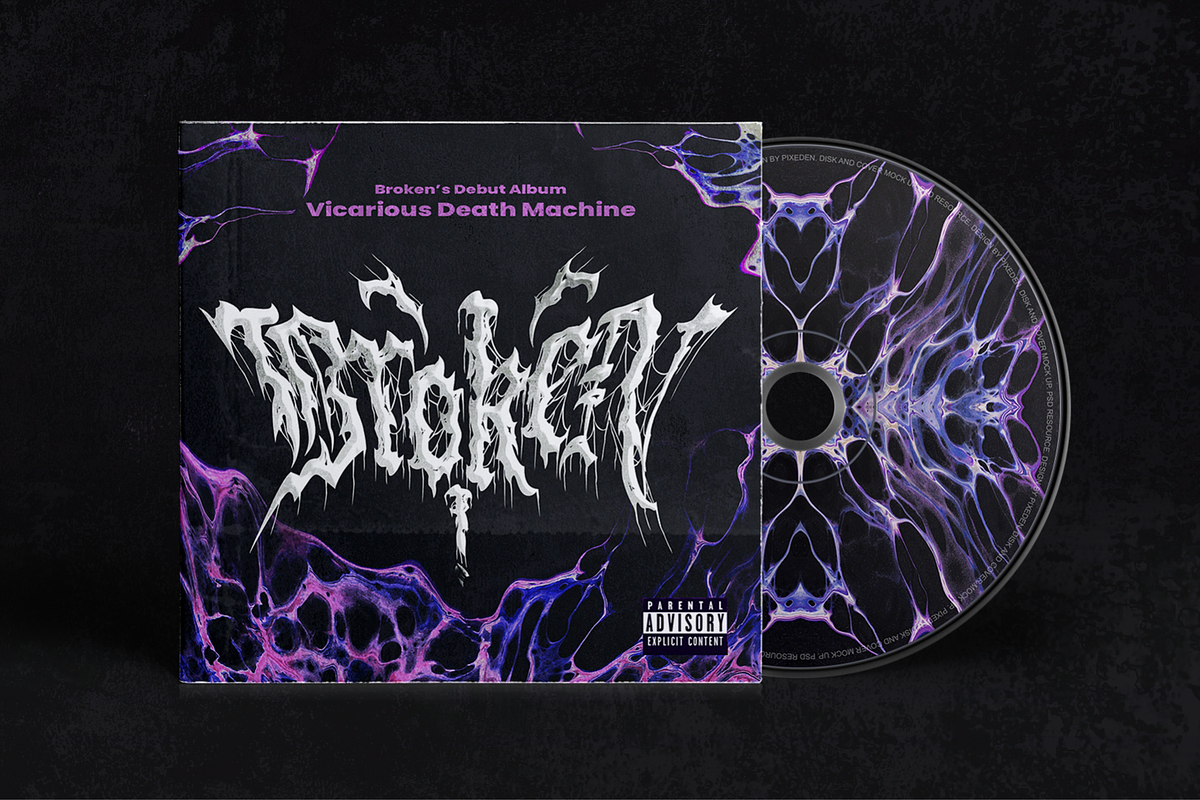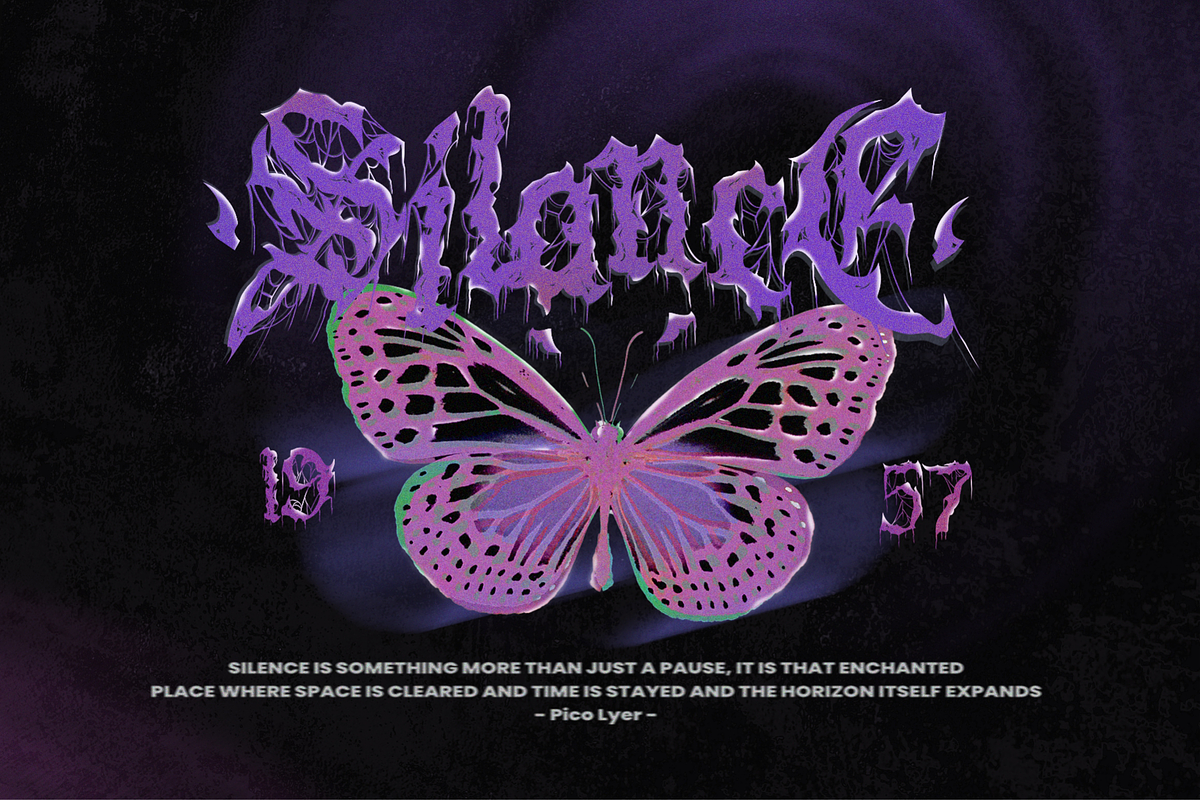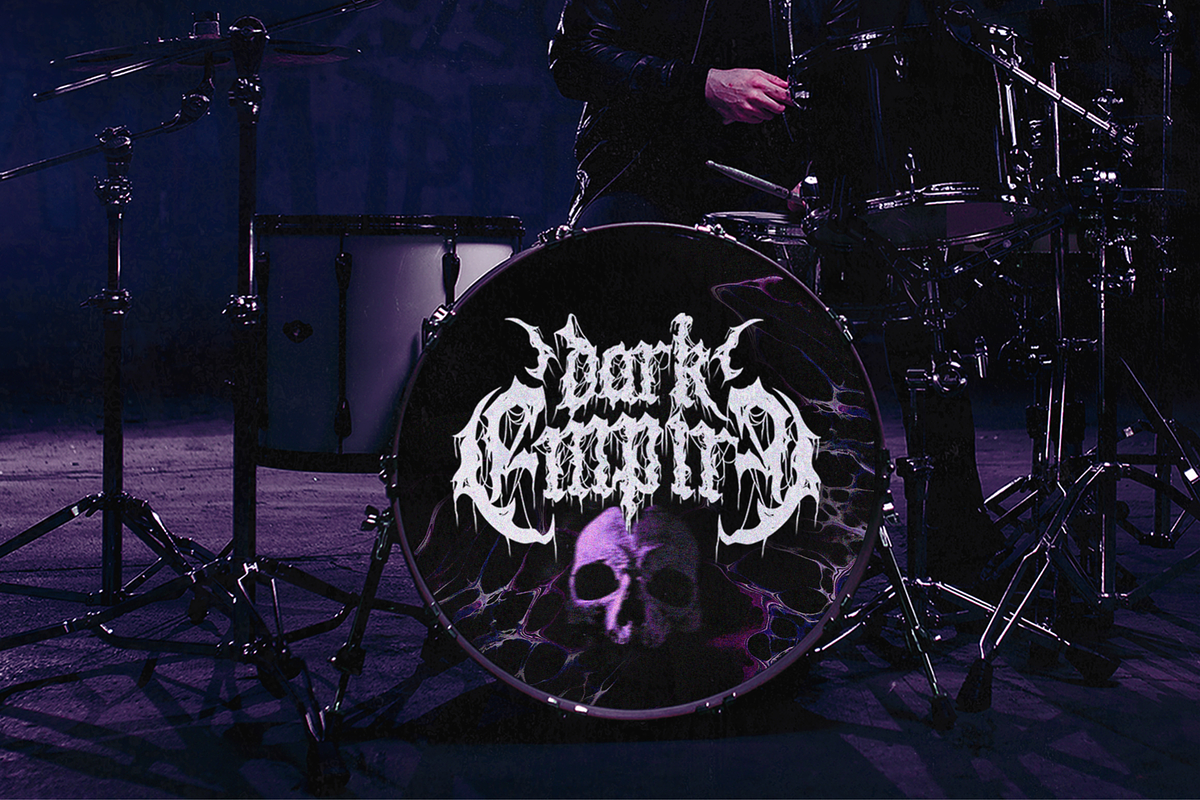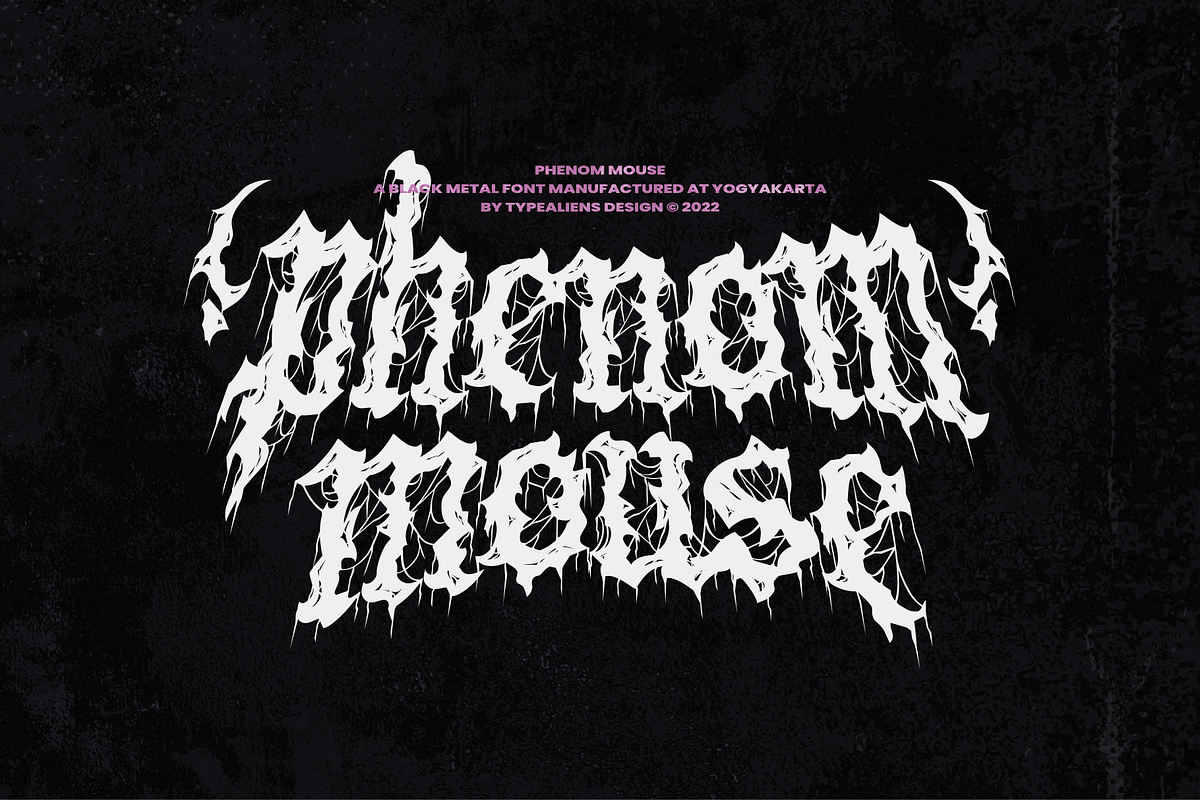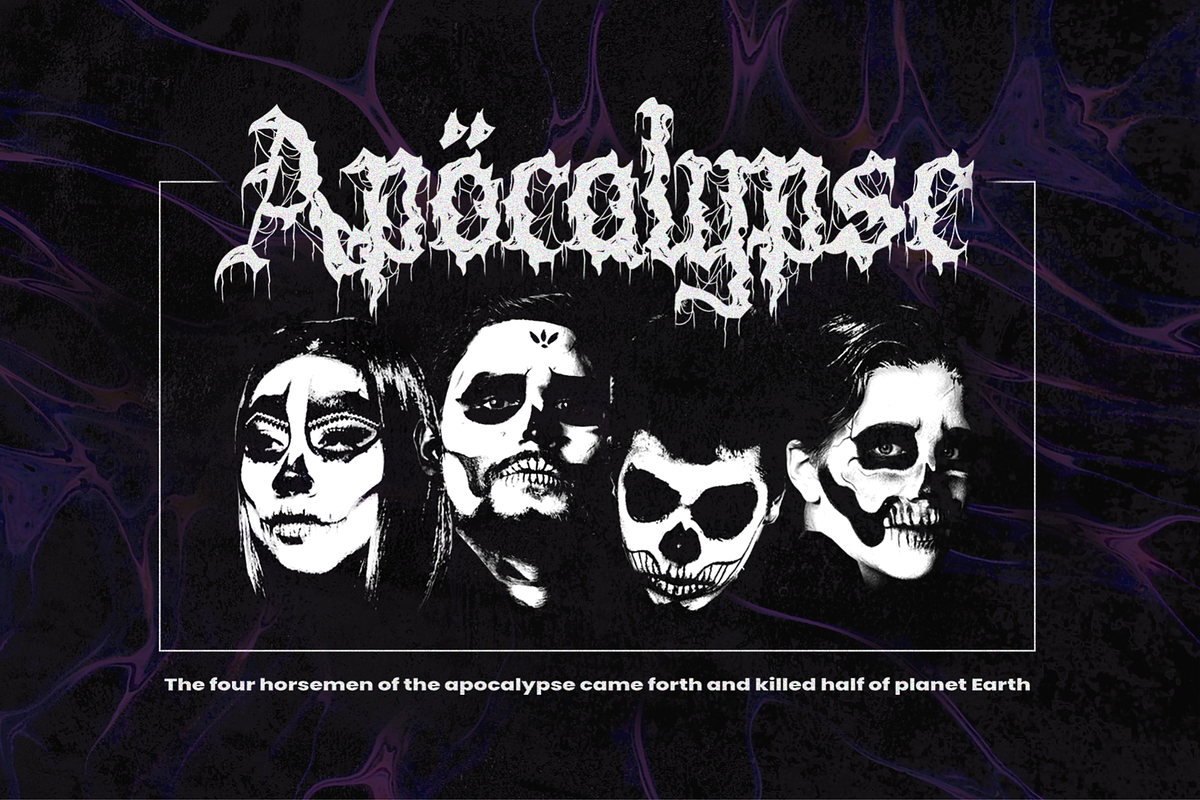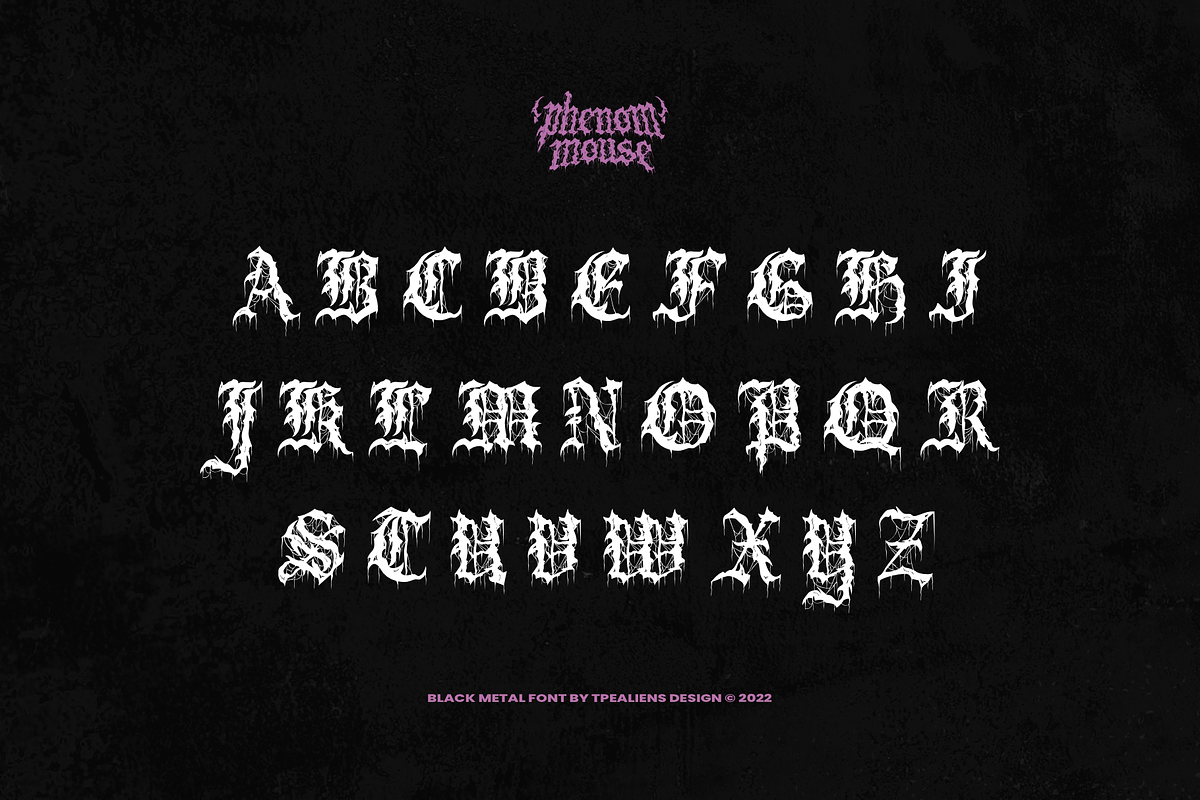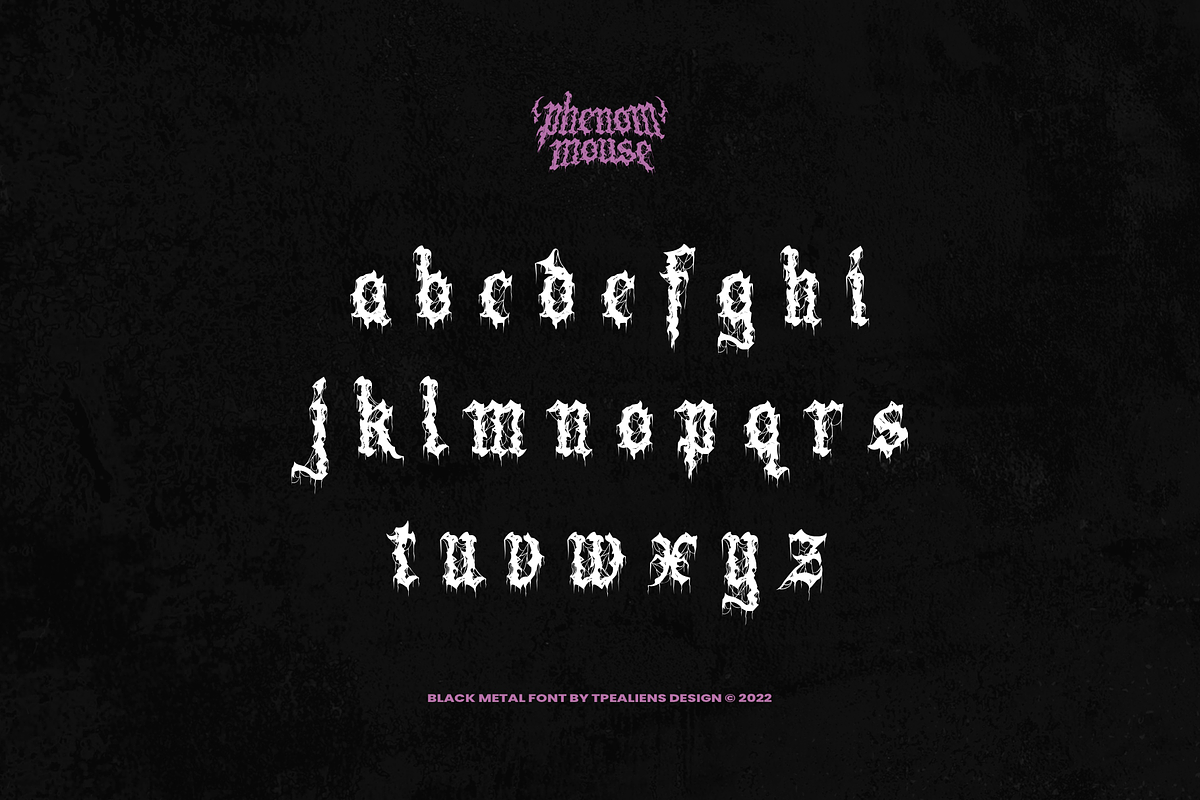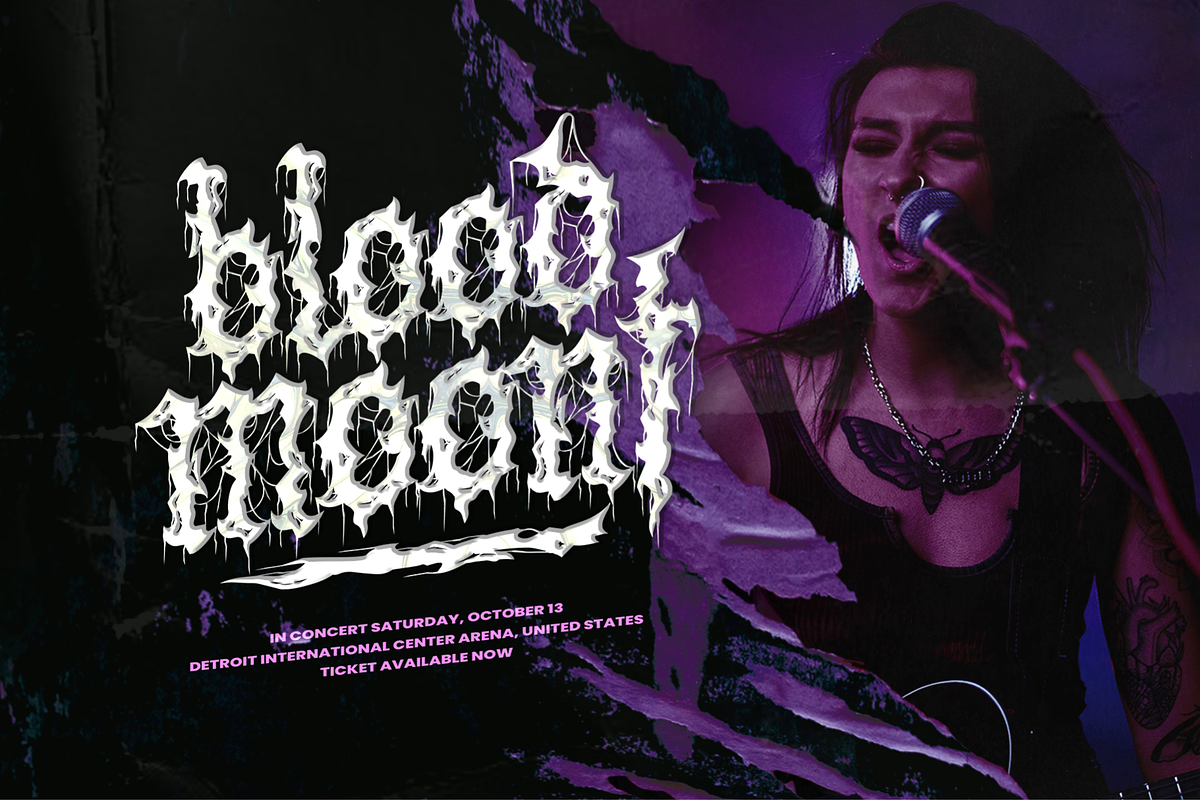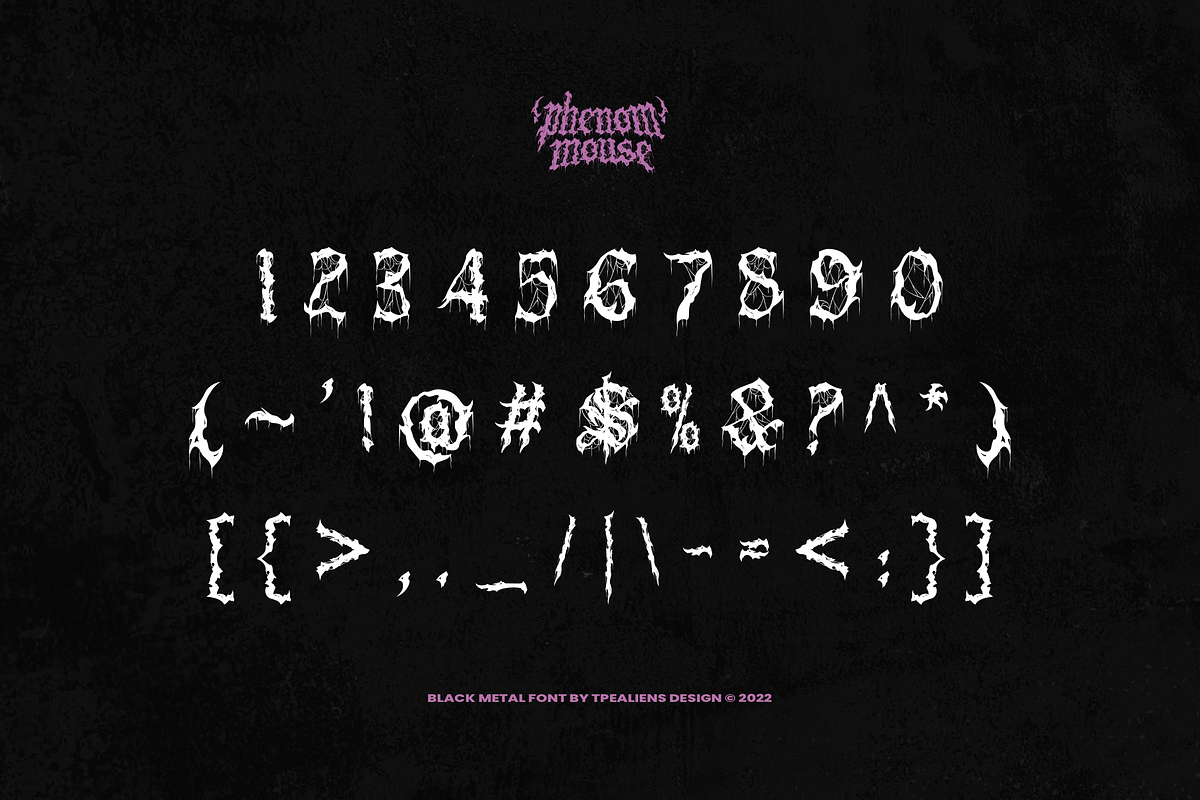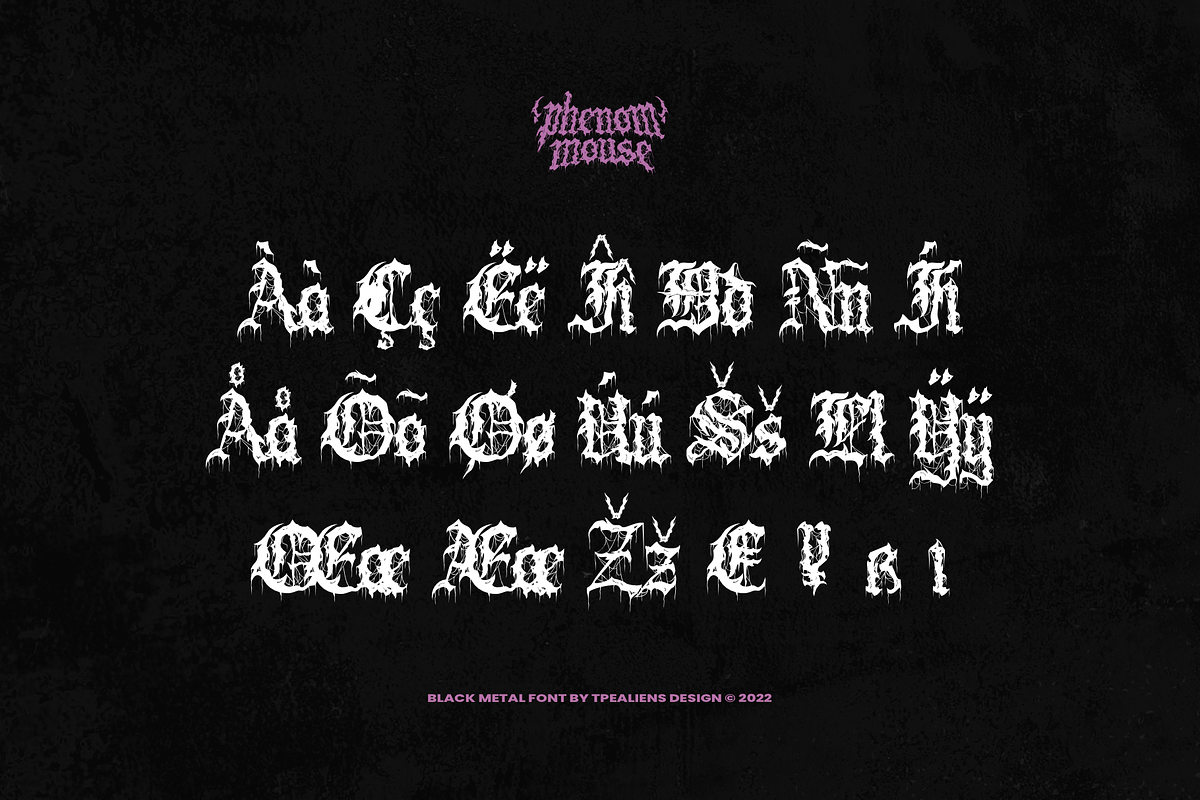
Phenom Mouse
PHENOM MOUSE
Phenom Mouse is a gothic font that was modified from the blackletter font, by adding additions such as "roots" so as to produce a unique font commonly used for metal band logos or underground bands or band concert posters. This font that looks scary and complicated is not suitable for a paragraph, because it's actually just a display font. This blackletter development can be categorized into modern fonts.